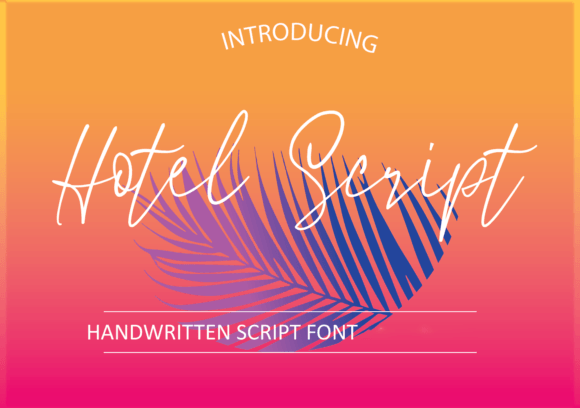
The Perfect Signature: Unlocking the Beauty of Hotel Script Font
Do you remember the moment when you finally nailed the perfect font for your design project? The thrill of seeing your words come to life, the feeling of accomplishment, and the sense of pride in your creation? For designers, those moments are what make all the hard work worth it. And today, we’re excited to share with you a font that’s sure to make those moments happen more often – the Hotel Script Font.
This beautiful signature script font is designed to elevate your designs to the highest level. With its natural movement and elegant strokes, it’s perfect for branding, headings, wedding designs, invitations, signatures, logos, labels, and much more! Whether you’re a seasoned pro or just starting out, the Hotel Script Font is a valuable addition to your design toolkit.
Hotel Script Font Key Features
- Font Style: Script Font, ideal for creating elegant and sophisticated designs.
- Unique Characteristics: Features a flowing, cursive design with subtle flourishes, adding a touch of sophistication to any text.
Hotel Script Font Review
Overall, I think the Hotel Script Font is a beautiful and elegant choice for headings and titles. ✨ The flowing connections between letters and the smooth, connected strokes make it perfect for creating a luxurious and sophisticated atmosphere. ✨ The font is highly legible, even at small font sizes, which is a great advantage for web and print design.
However, there are some limitations to consider. ⚠️ The Hotel Script Font can be a bit too ornate for some designs, and the complexity of the letters may not be suitable for large blocks of text. ⚠️ Additionally, the font may not be suitable for digital use, as it can appear pixelated at certain resolutions.
Here are some key points to consider:
- Beautiful, elegant design ✨
- Highly legible at small font sizes
- Perfect for headings and titles
- May be too ornate for some designs ⚠️
- Not suitable for large blocks of text
- May appear pixelated at certain resolutions
In conclusion, the Hotel Script Font is a great choice for designers looking to create a luxurious and sophisticated atmosphere. However, it’s essential to consider the limitations and use it judiciously in your designs.
The Hotel Script Font is ideal for creating elegant and sophisticated designs, such as wedding invitations, restaurant menus, and hotel branding. To get the most out of this font, use it in combination with other elegant fonts and add decorative elements to create a cohesive look.
Alternatives to Hotel Script Font
Playfair Display is an elegant script font perfect for creating a luxurious and sophisticated look. It is ideal for use in headings, titles, and other display text where a touch of elegance is required. Compared to Hotel Script Font, Playfair Display has a more refined and sophisticated feel, making it suitable for high-end branding and advertising.
Great Vibes is a modern script font that exudes a sense of fun and playfulness. It is ideal for use in creative projects, such as posters, social media graphics, and advertising campaigns. Compared to Hotel Script Font, Great Vibes has a more relaxed and casual feel, making it suitable for projects that require a laid-back tone.
Carolyna Pro is a elegant script font with a touch of sophistication and glamour. It is ideal for use in high-end branding, advertising, and editorial design projects. Compared to Hotel Script Font, Carolyna Pro has a more refined and polished feel, making it suitable for projects that require a touch of luxury.
Yes, the Hotel Script Font is fully editable and customizable. You can adjust font sizes, colors, and styles to fit your design requirements. Additionally, the font includes a range of ligatures and swashes that can be used to add flair and personality to your designs.